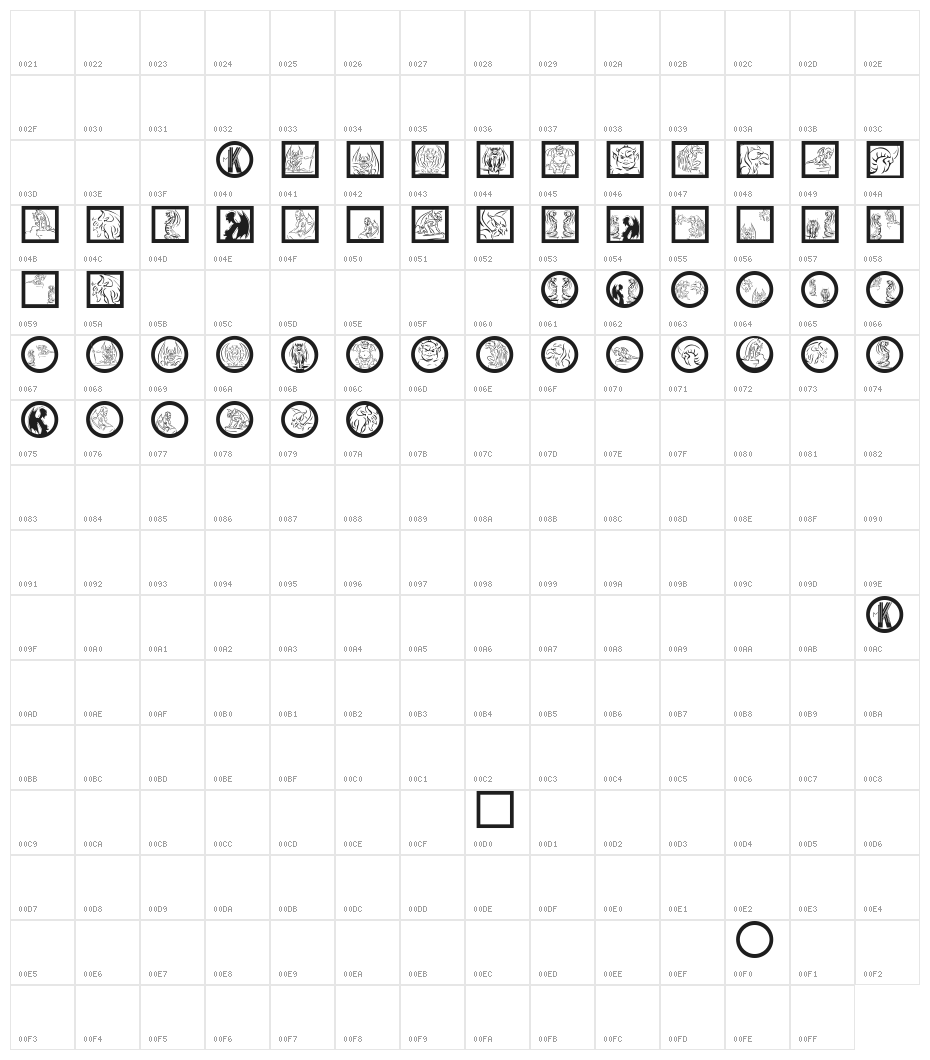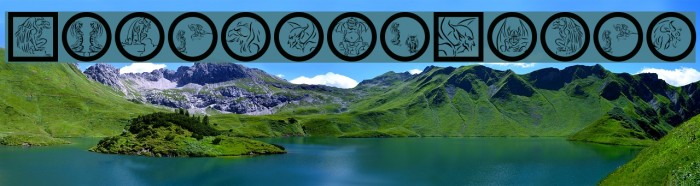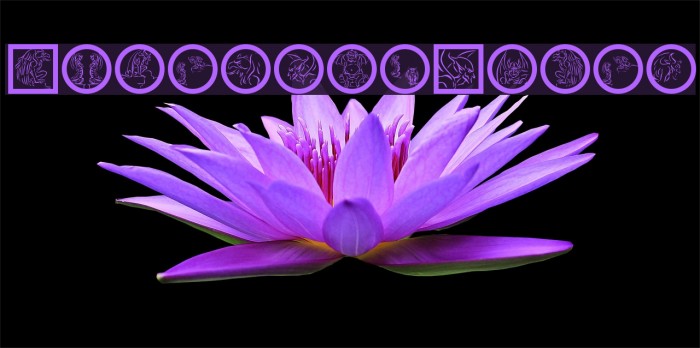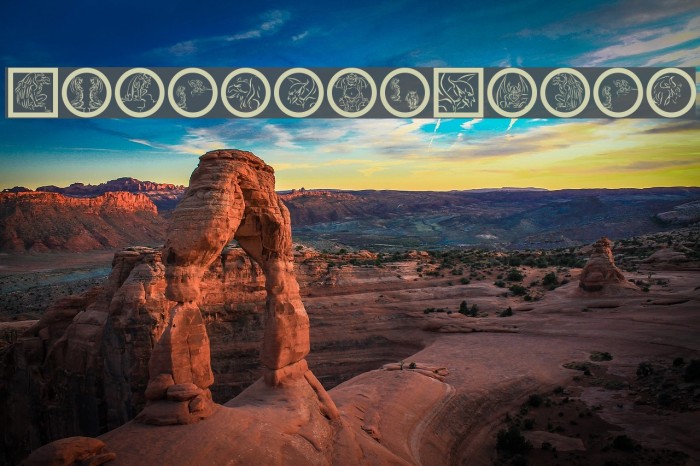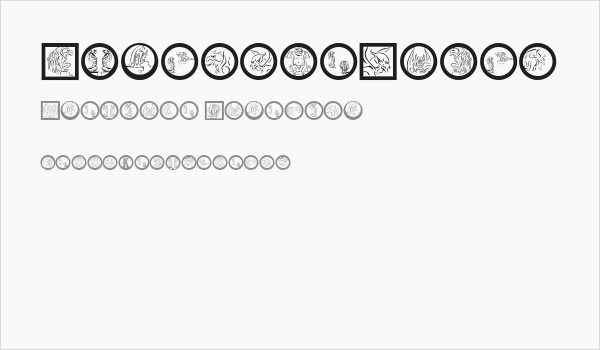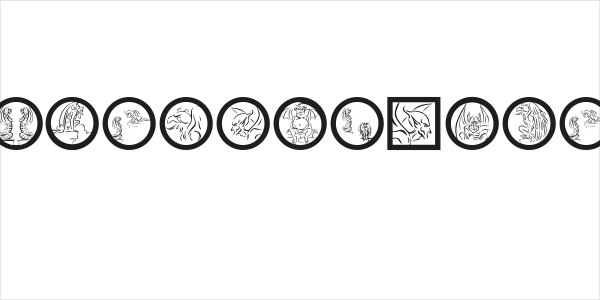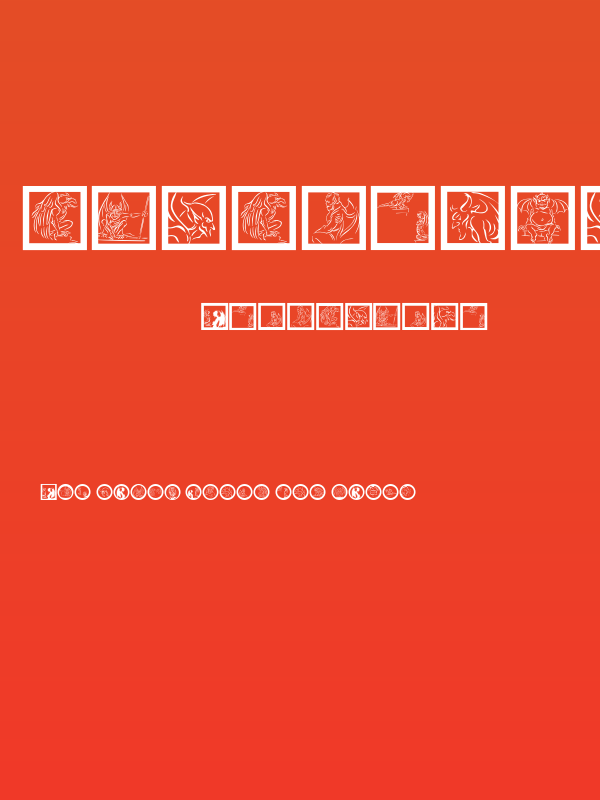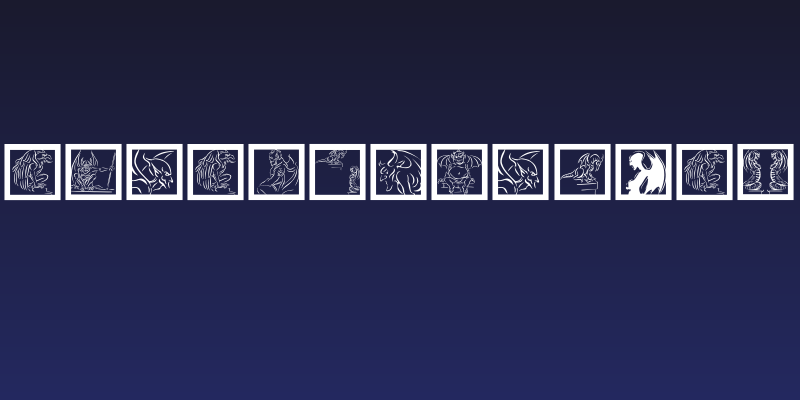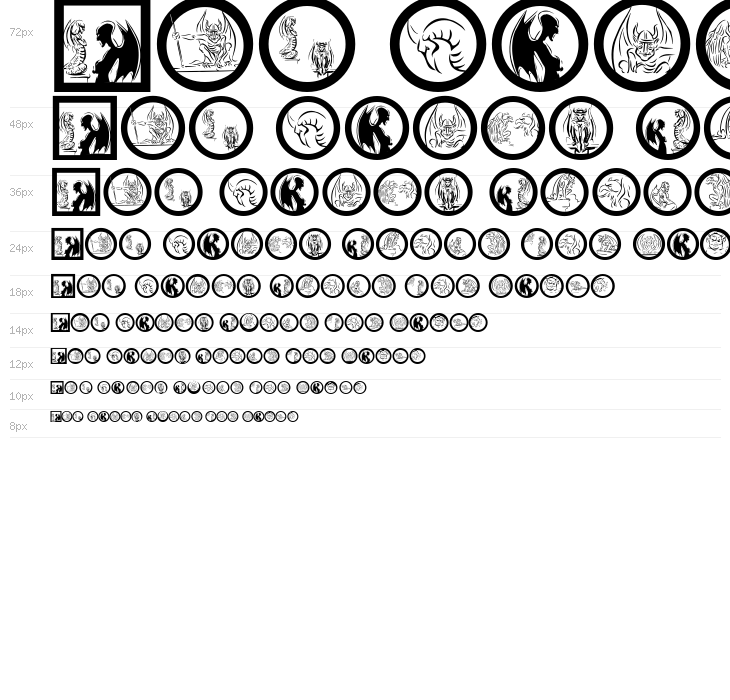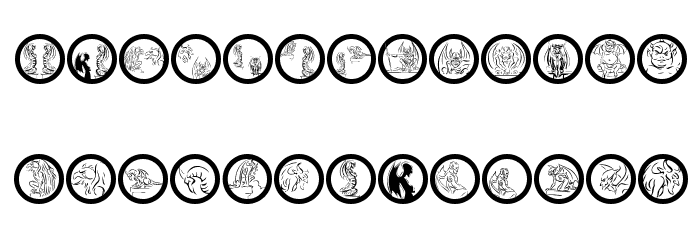
GargoyleRings Font
GargoyleRings Description
A decorative font featuring intricate gargoyle illustrations within bold square and circular frames for each character, combining mythical and gothic elements with high-contrast black and white line art.
| Overall Style | Decorative, Gothic, Mythical |
| Use Case | Logos, Headlines, Posters, Themed Graphics |
| Proposed Projects | Fantasy book covers, gothic event posters, themed invitations, game titles, Halloween branding. |